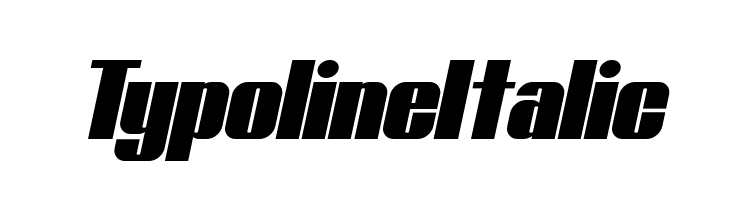
A bold, italicized font with angular, runic-inspired design.
A bold, graffiti-inspired font with dynamic curves and sharp angles.
A bold, geometric font with a modern and dynamic design.
Bold, italicized font with a dynamic and modern style.
A graceful, high-contrast handwritten script with long, sweeping lines.
A bold, angular, outlined font with an oblique slant and a futuristic, edgy style.
A playful, handwritten-style font with bold, rounded characters.
A decorative font with characters inside heart shapes with floral accents.
A bold, geometric font with a modern and impactful design.
A geometric, modern font with tall, narrow characters and sharp angles.
A modern, light sans-serif font with low contrast and slightly condensed spacing.
A modern, monospaced font with a digital dot pattern.
A bold, futuristic font with geometric shapes and sharp angles.
A dynamic, expressive script font with bold, brush-like strokes.
A hollow, geometric font with a digital, fragmented style.
A bold, brush-style font with dynamic and expressive strokes.
A bold, decorative font with vintage elegance and ornamental flourishes.
A modern, handwritten font with elegant, flowing cursive characters.
A dynamic, cursive font with fluid, interconnected strokes and an expressive style.
A bold, flowing script font with a playful and energetic style.
An elegant, flowing script font with sophisticated cursive letterforms.
A bold, high-contrast font with sharp serifs and a dynamic style.
A lively, cursive handwritten font with fluid, connected strokes.
A bold, decorative set of ornamental and symbolic glyphs.
A futuristic, dynamic font with sharp angles and sleek design.
A whimsical, Halloween-themed font with characters in witch hat frames.
A playful and whimsical font with tall, narrow characters and consistent stroke width.
A whimsical font with characters embedded in cartoon duck illustrations.
A bold, distressed font with a dramatic, melting effect.
A playful, hand-painted style font with bold, fluid strokes and a whimsical feel.
A geometric and modern font with clean lines and sharp angles, perfect for contemporary designs.
A playful, candy cane-themed decorative font perfect for festive projects.